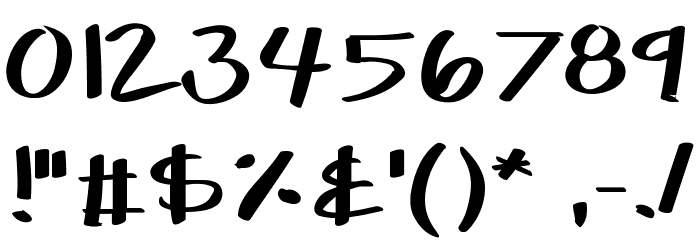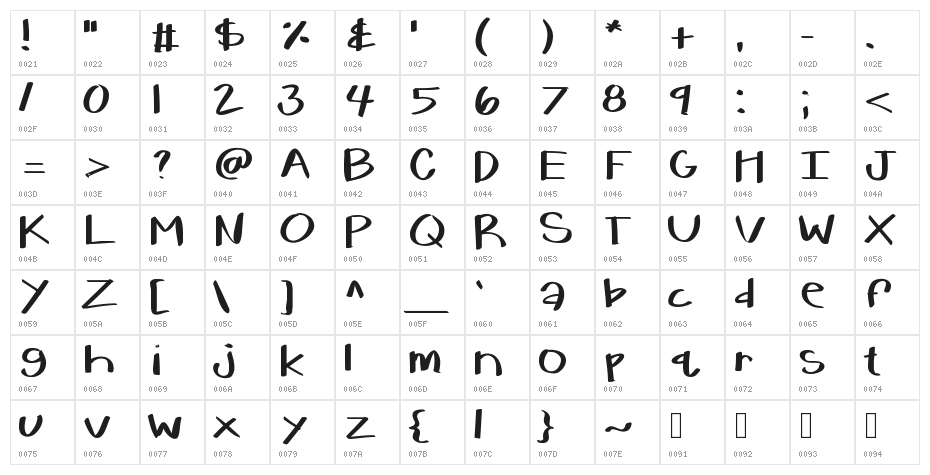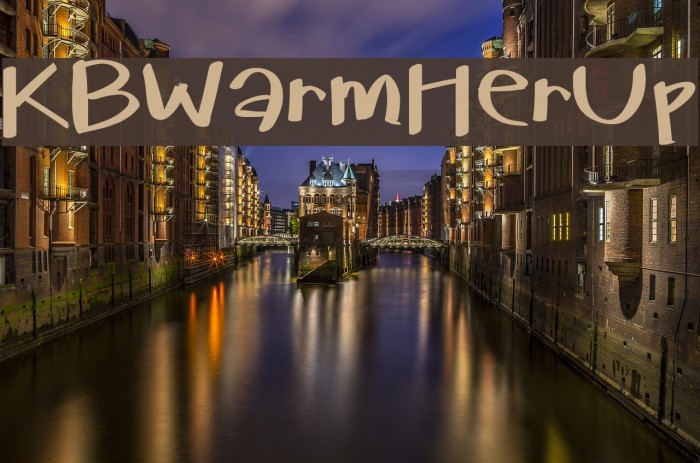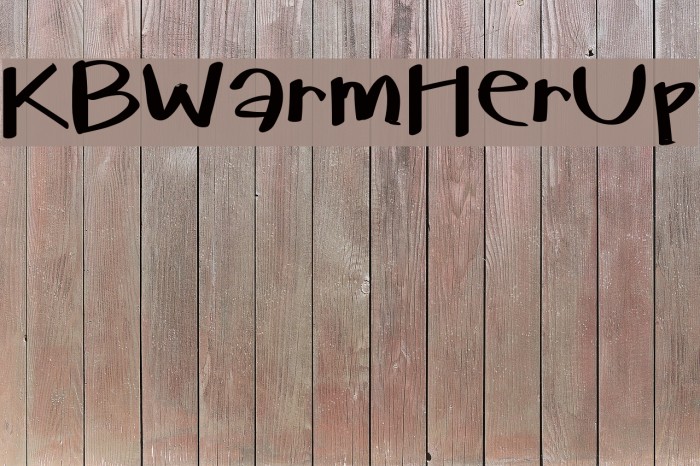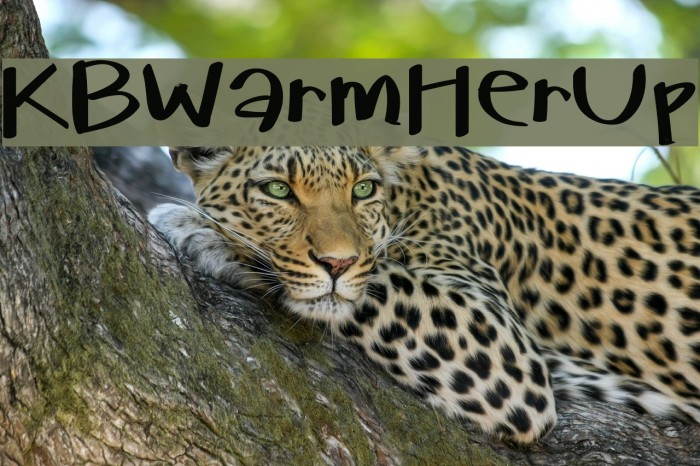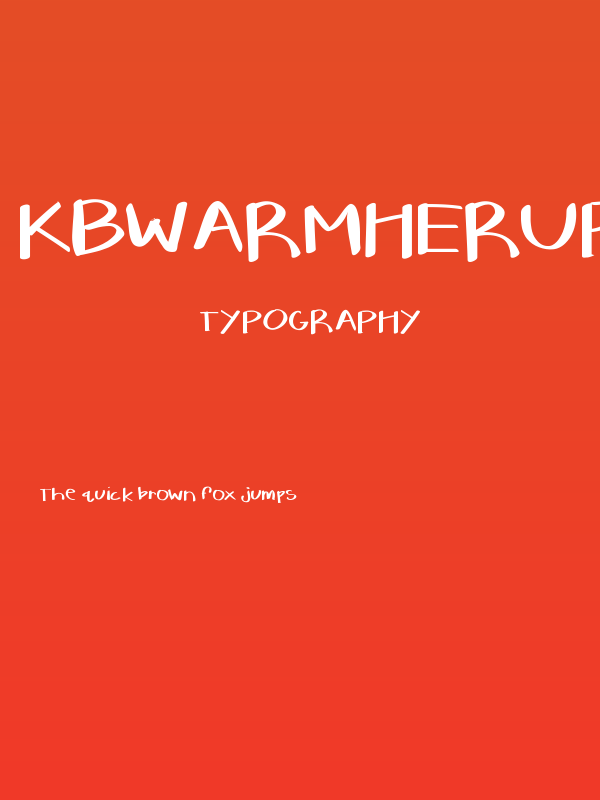
KBWarmHerUp Font
KBWarmHerUp Description
This playful and energetic font features a handwritten style with bold, rounded strokes that give it a friendly and approachable appearance. The letters are slightly irregular, adding a whimsical touch that enhances its casual and informal vibe. The uppercase and lowercase characters maintain a consistent style, with smooth curves and a slight slant that suggests movement. The numbers and special characters are equally expressive, fitting seamlessly with the overall design. This font's lively personality makes it ideal for projects that require a touch of fun and creativity.
| Overall Style | Playful, Casual |
| Proposed Projects | Ideal for children's books, playful branding, greeting cards, and casual invitations. |